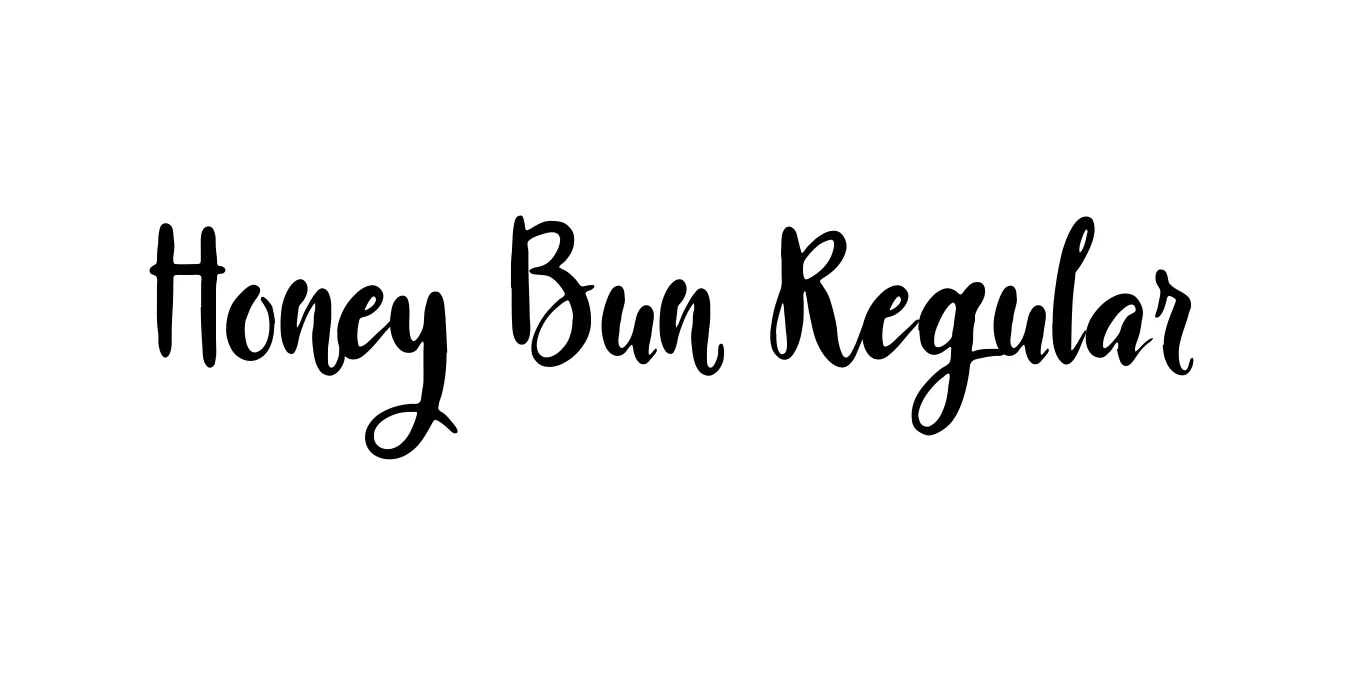
Honey Bun Regular
Designed by Sanna-Freu
| Font Name | Honey Bun |
| Category | Script / Display |
| Designer | Sanna-Freu |
Honey Bun Regular is a charming and whimsical script font designed to bring a sense of playfulness and warmth to any creative project. Its rounded edges and bubbly character shapes make it an excellent choice for designs that require a friendly, approachable aesthetic. The font captures a hand-drawn quality that feels both modern and nostalgic, bridging the gap between casual doodles and professional typography.
Originally developed for digital branding and social media graphics, Honey Bun Regular has since become a favorite among designers working on children's products, greeting cards, and sticker art. Its legibility remains high despite its decorative nature, allowing it to function well in both large headlines and shorter bursts of body text. This versatility ensures that it stands out in vibrant color palettes and minimalist layouts alike.
Honey Bun Regular Best Uses
Ideal for creating fun, youth-oriented logos and identity systems.
Perfect for greeting cards, invitations, and personalized notes.
Great for eye-catching Instagram stories and Pinterest graphics.
Excellent for sticker designs, t-shirts, and craft projects.